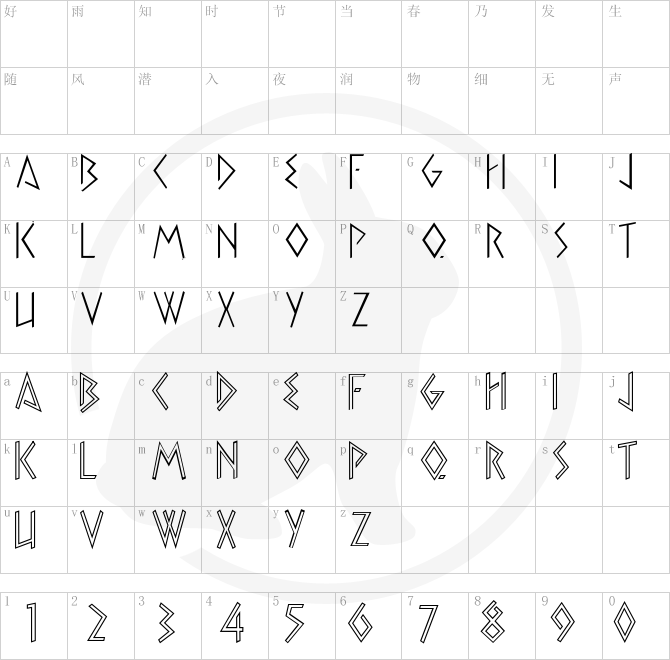
- Font Name:k22 Xerxes
k22-Xerxes.ttf is a very beautiful artistic font, k22-Xerxes.ttf is widely used in the design and printing of various books and pictures,k22-Xerxes.ttf has a strong visual impact,k22-Xerxes.ttf is a commonly used font in newspapers, magazines and books, and is used in posters, e-commerce Poster design, store design, logo design, font design and other fields.k22-Xerxes.